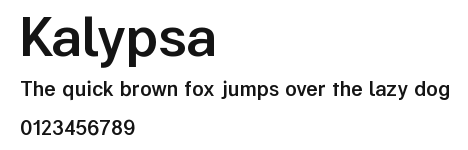
Kalypsa.ttf is a modern, elegant sans-serif font designed for ultimate readability and visual harmony. Perfect for branding, headlines, web design, and print materials.